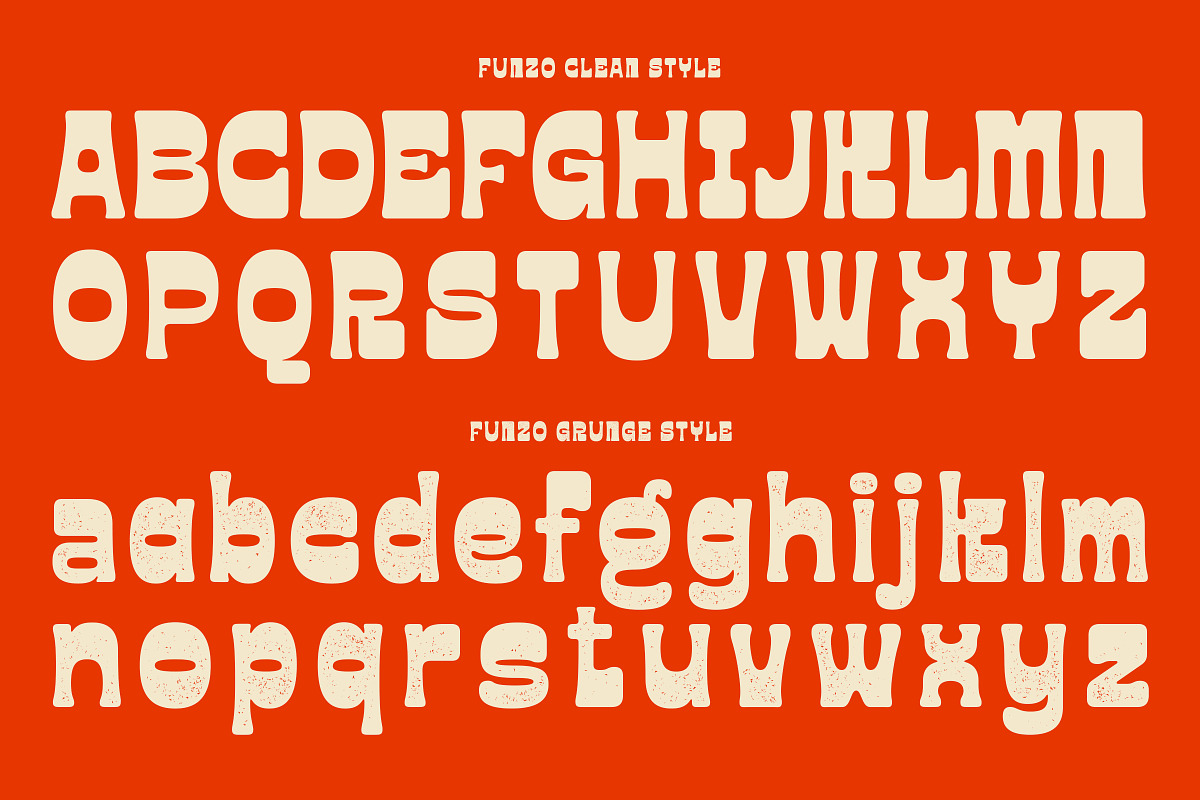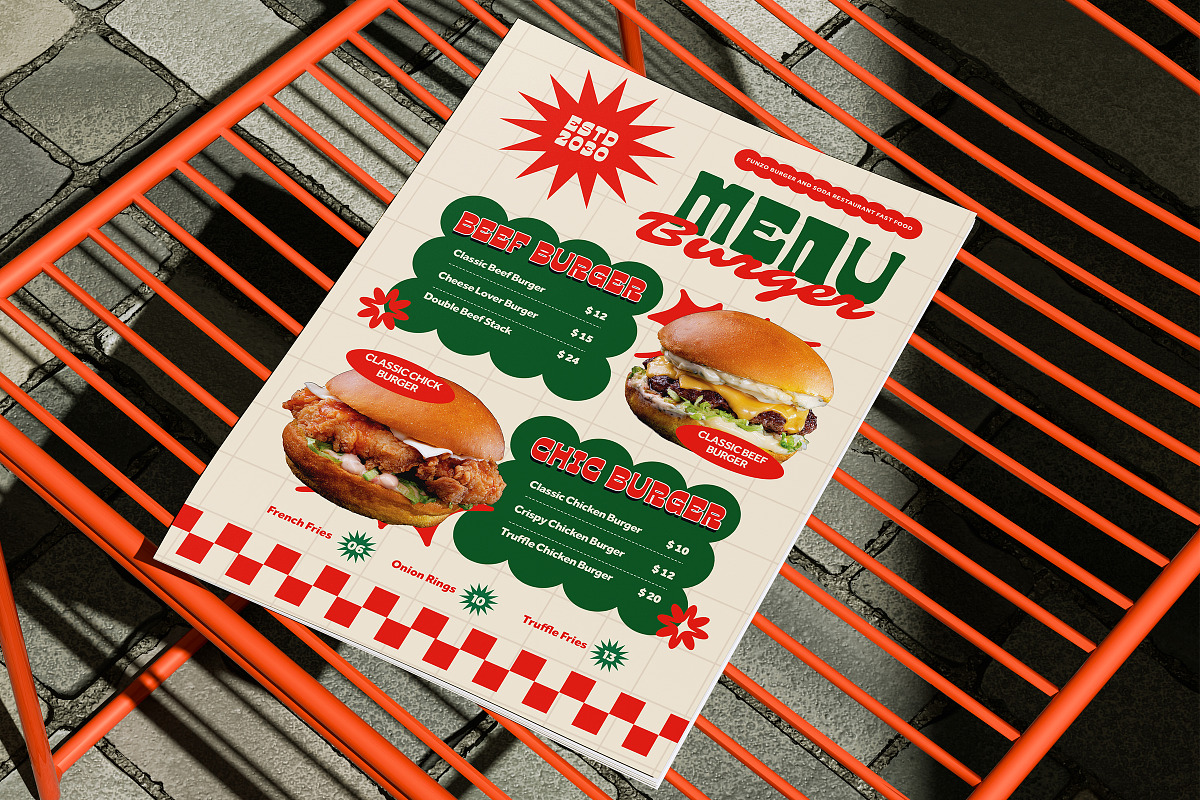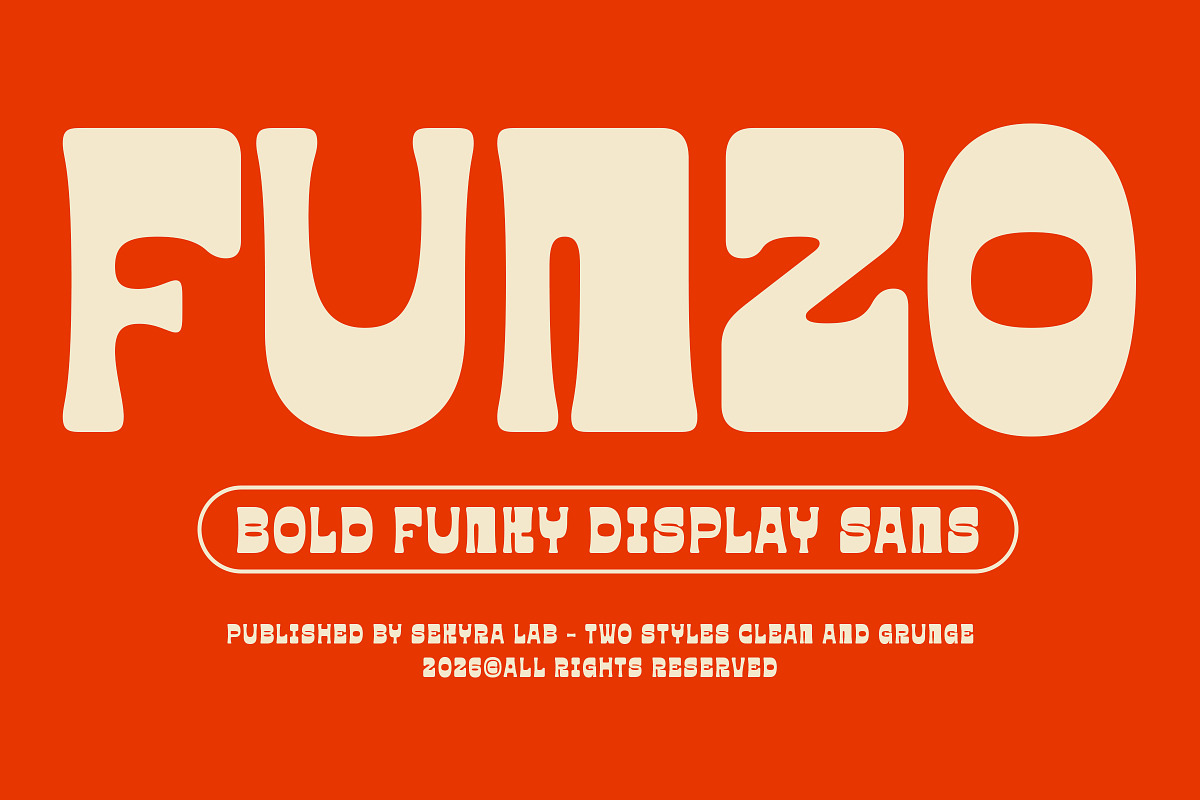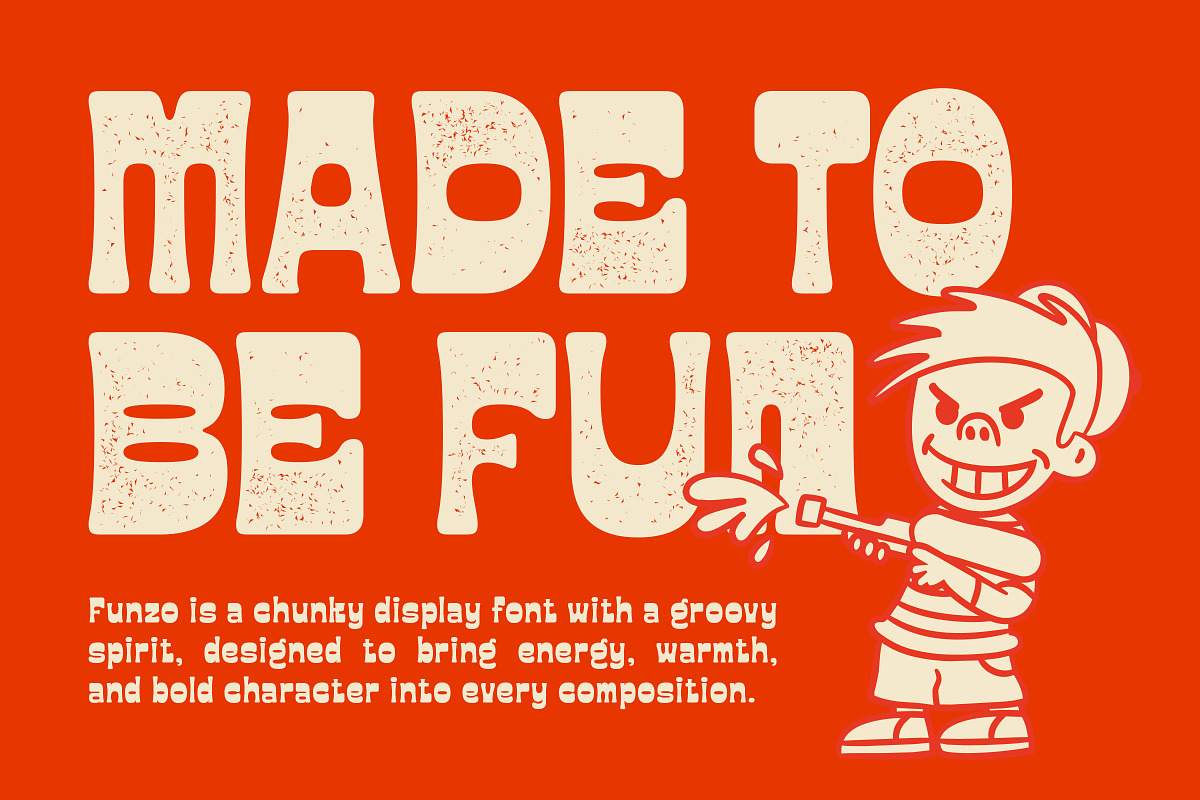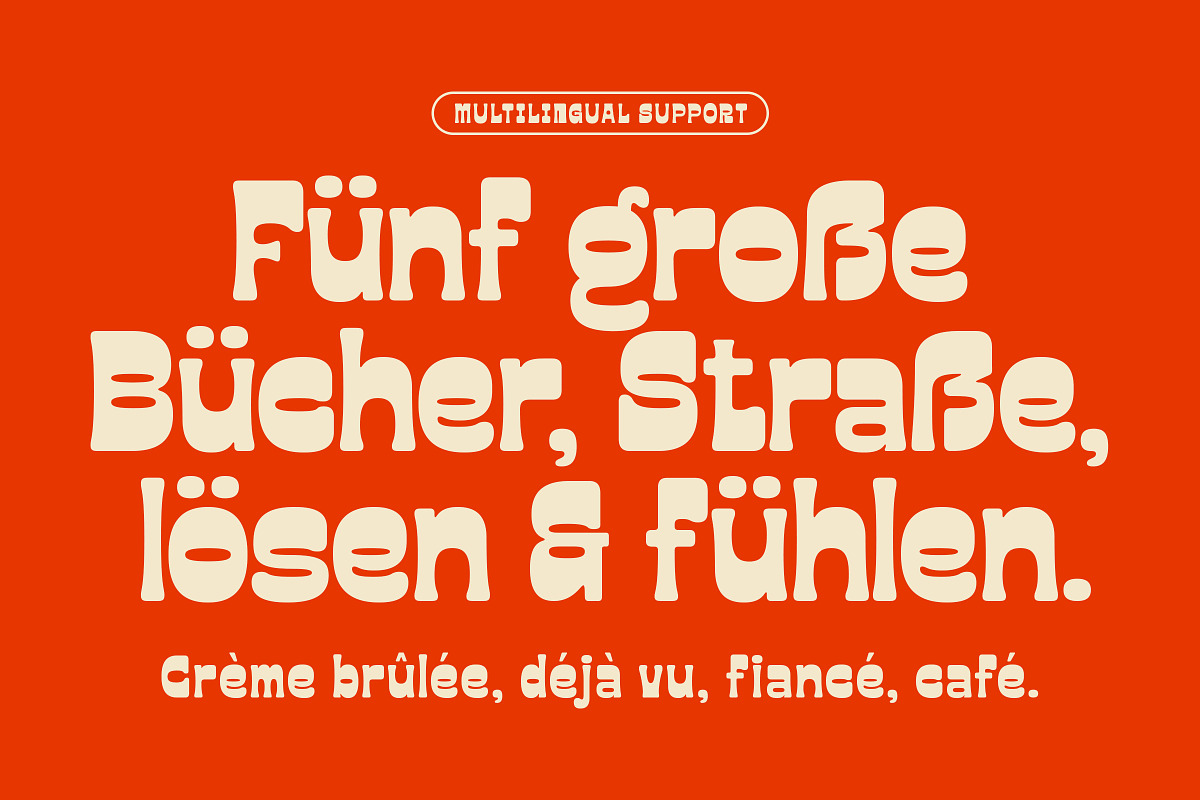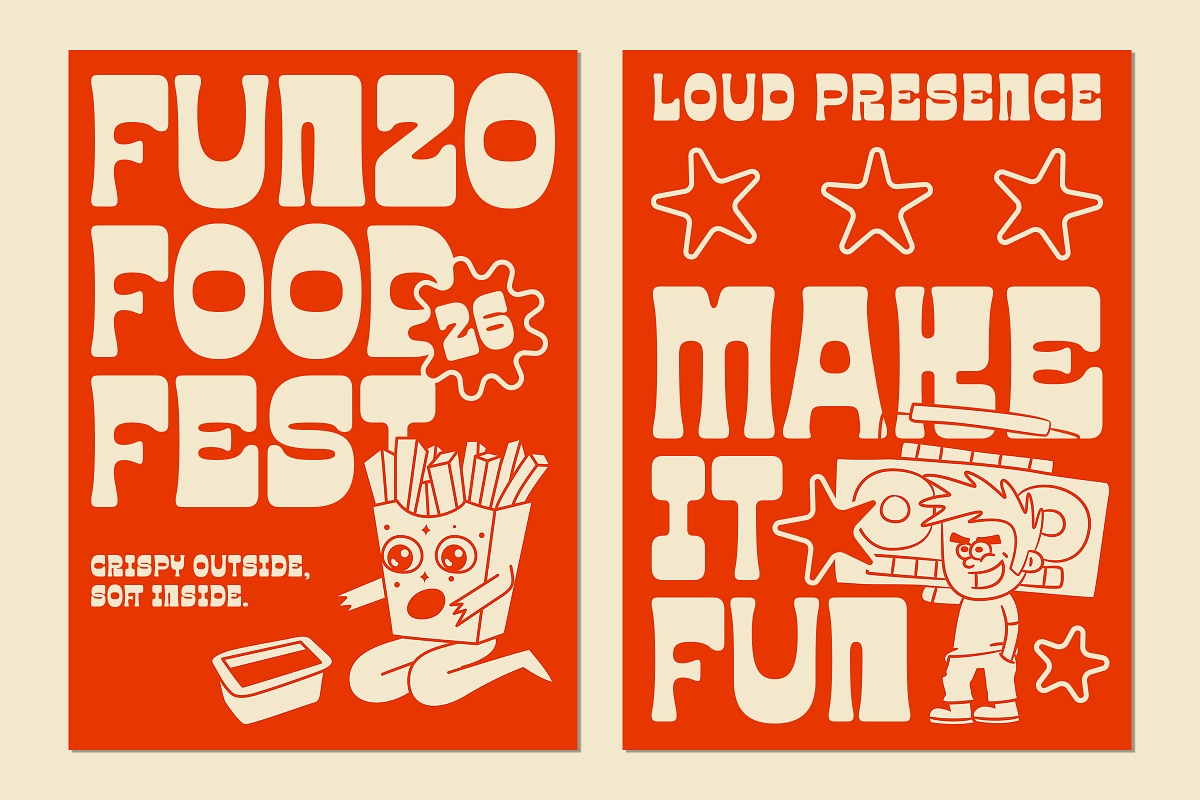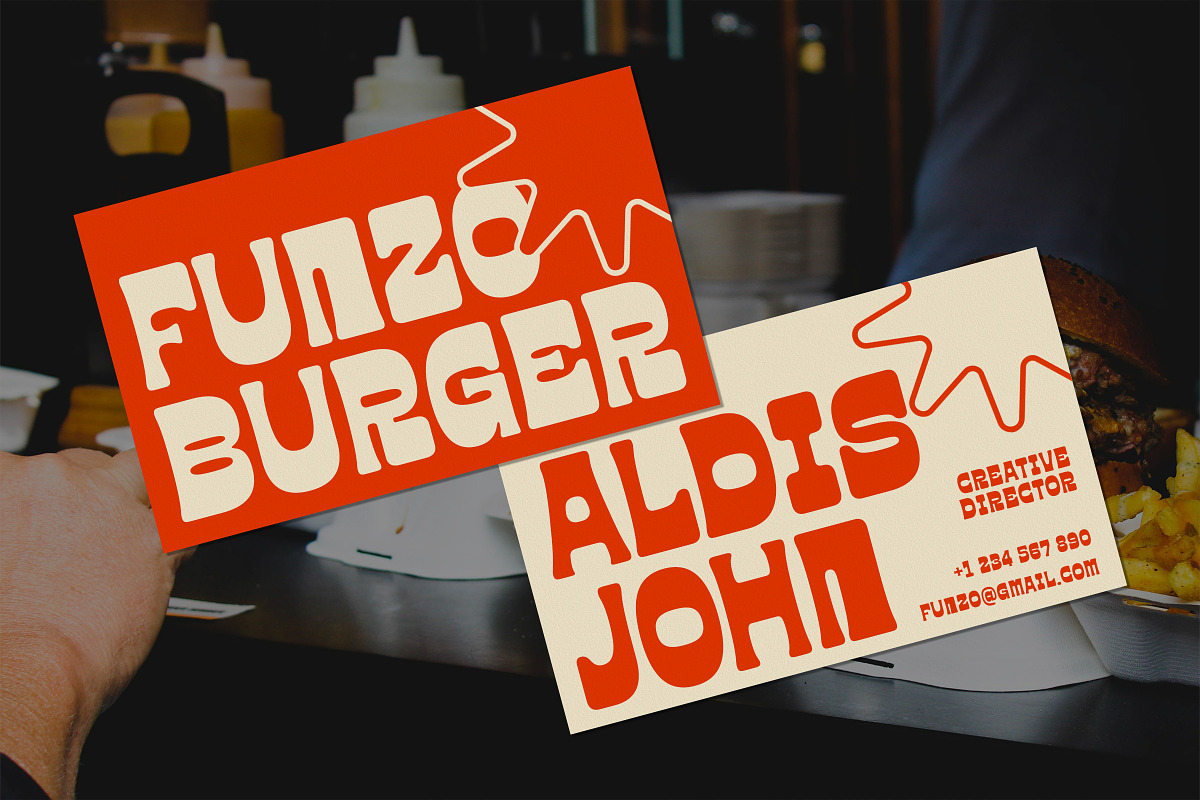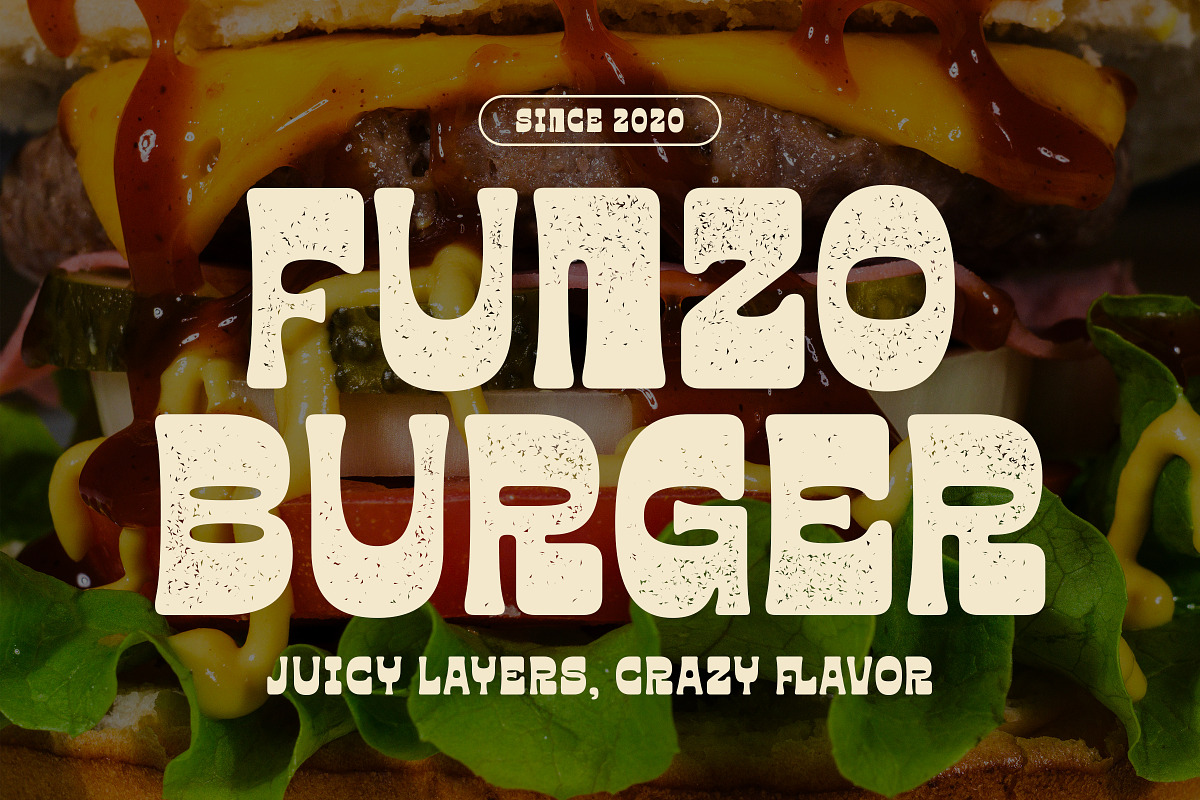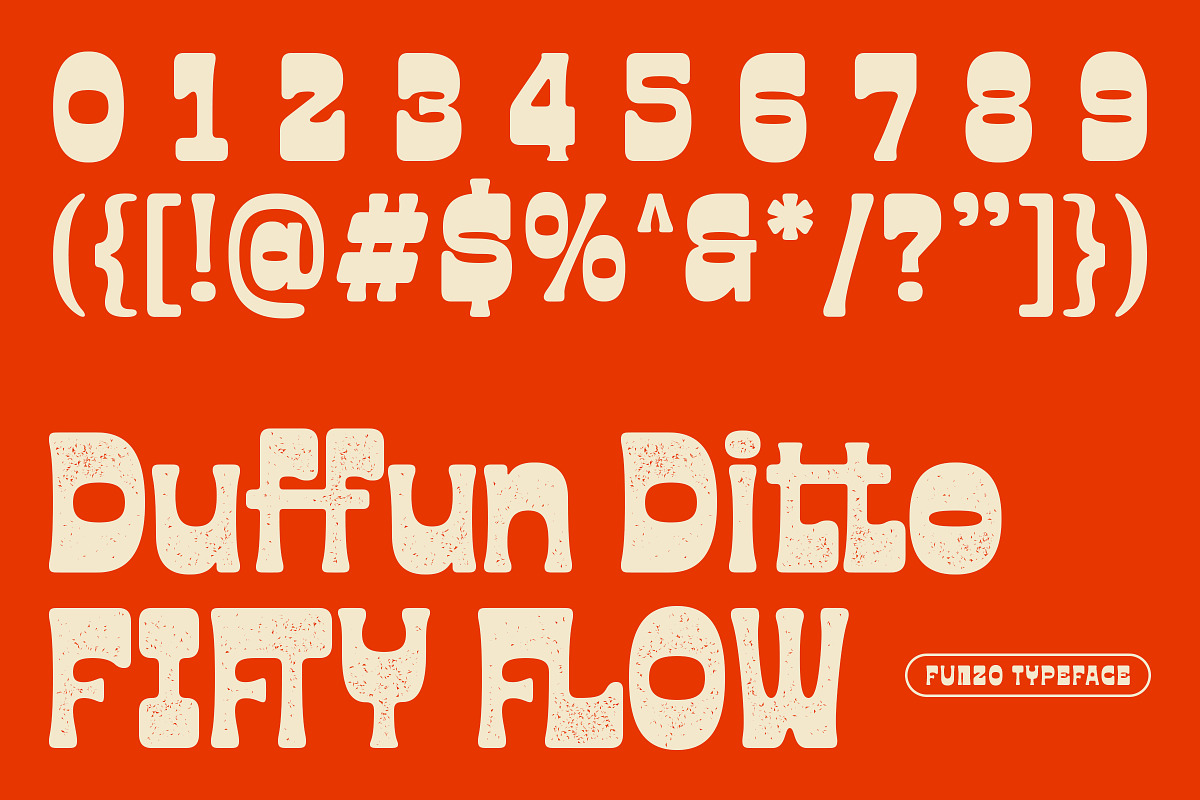
Funzo - Bold Funky Display Sans Font
Funzo is a bold funky display sans font designed to bring fun and playful energy into your creative projects. With its chunky shapes, rounded edges, and expressive letterforms, this font delivers a strong visual impact while remaining versatile for various design needs. Whether you're working on branding, posters, or digital content, it helps your work stand out effortlessly.
This font is perfect for designers looking to create cheerful, retro, and eye-catching visuals. Its unique style makes it suitable for both modern and vintage-inspired designs, giving you flexibility across multiple creative directions. From bold headlines to dynamic layouts, it ensures your typography grabs attention.
Suitable for / Best for: • Branding & Logo Design • Posters & Headlines • Social Media Graphics • Packaging Design • Merchandise & Apparel • Editorial & Advertising